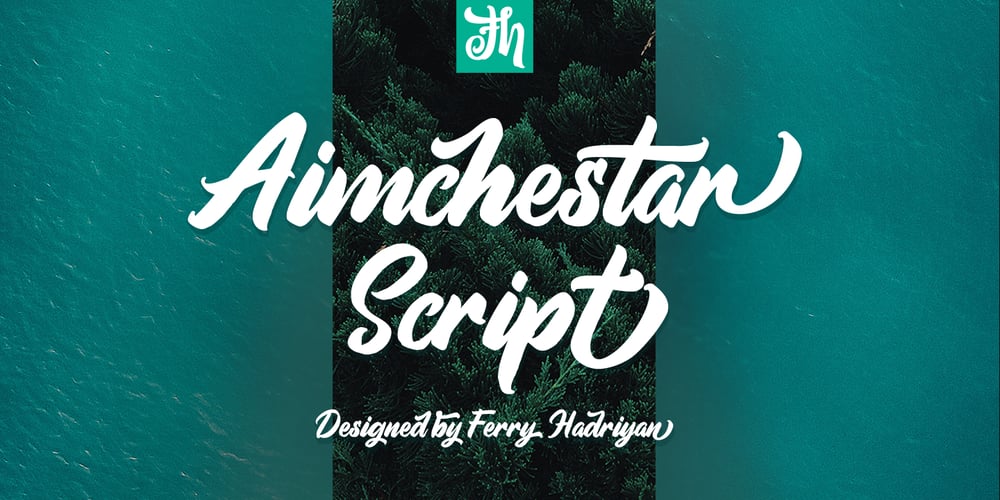
Aimchestar Font Family was designed by Ferry Hadriyan and published by FHFont. Aimchestar contains 1 styles and family package options. Aimchestar is script with a hand-lettered brush style, and includes OpenType features. It is suitable for designs, weddings, events, t-shirts, logos, badges, sticker, and more to make your work awesome.